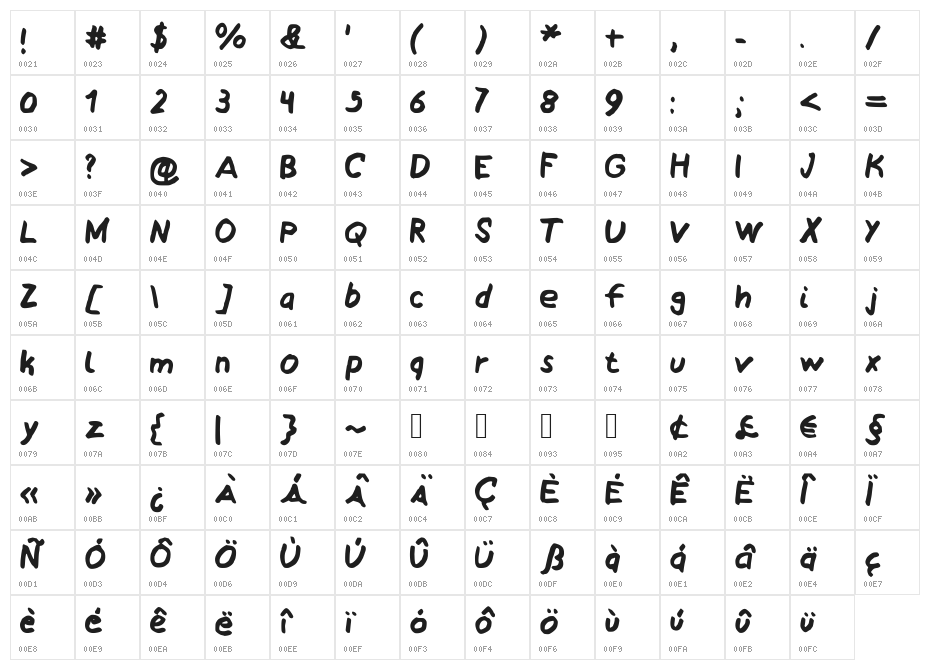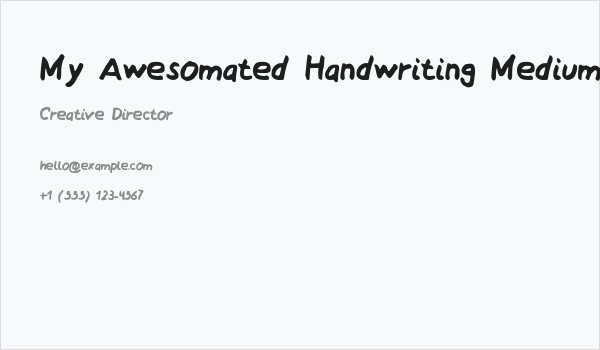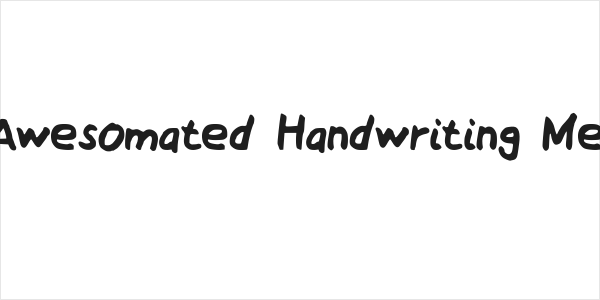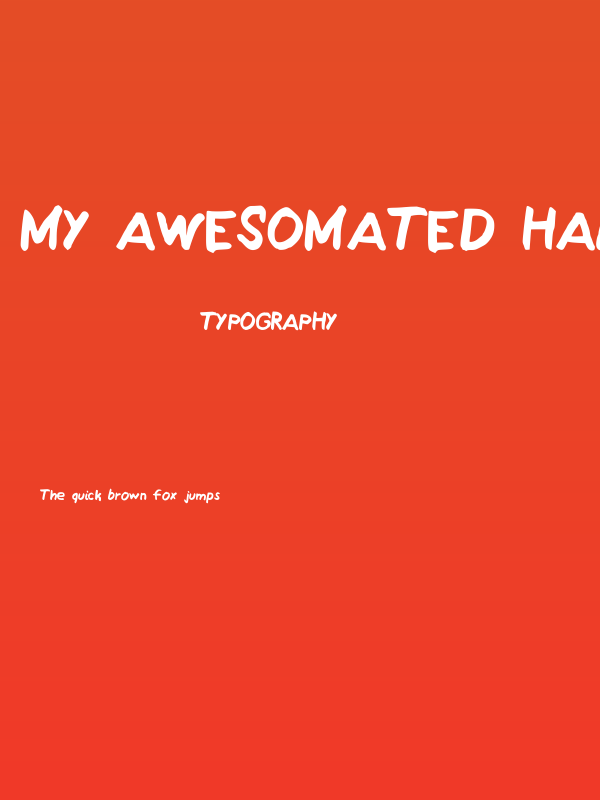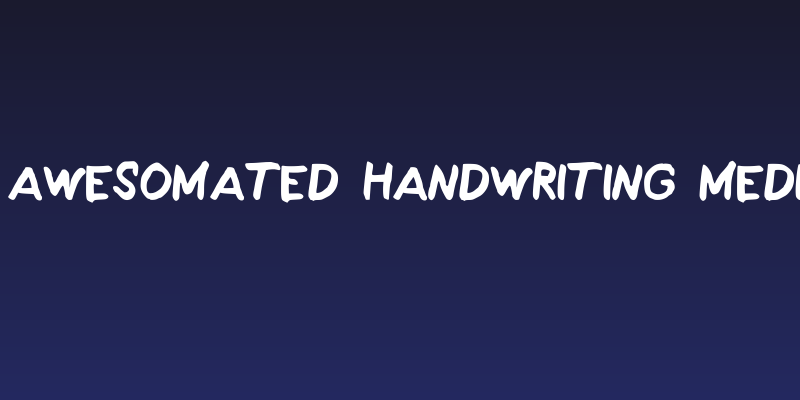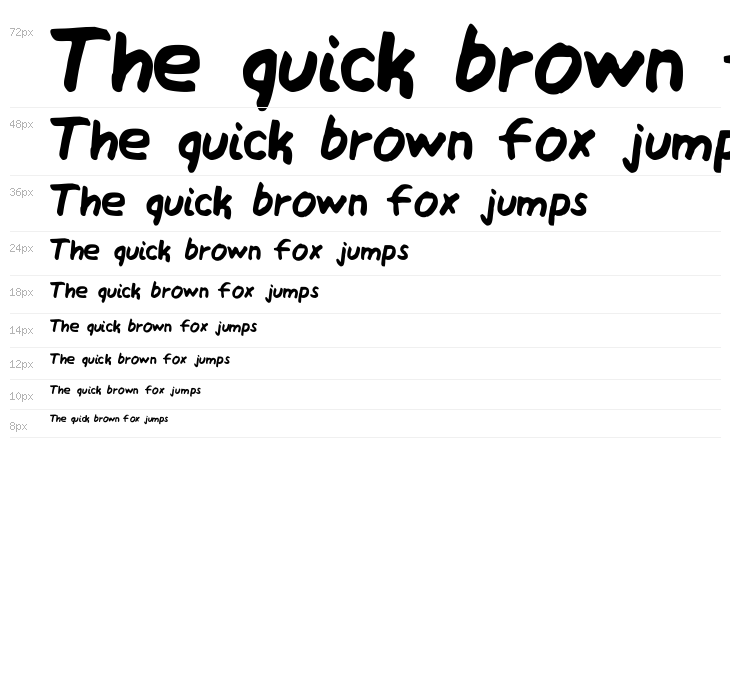
My Awesomated Handwriting Medium Font
My Awesomated Handwriting Medium Description
This font exudes a playful and casual handwritten style, characterized by its bold and slightly irregular strokes that mimic the natural flow of handwriting. The letters have a rounded appearance with a consistent thickness, giving it a friendly and approachable feel. The uppercase and lowercase letters are well-balanced, with the lowercase letters maintaining a similar height to the uppercase, enhancing readability. The numbers and special characters follow the same style, ensuring uniformity across all glyphs. This font is perfect for projects that require a personal touch, such as invitations, greeting cards, or any design that aims to convey warmth and creativity.
| Proposed Projects | Ideal for invitations, greeting cards, personal branding, and creative projects. |